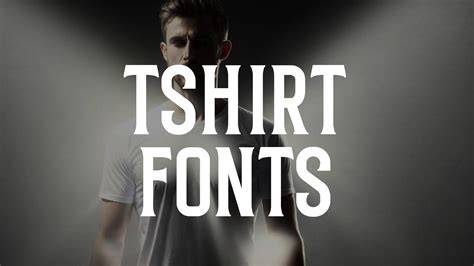
The Best T-Shirt Design Fonts Of 2023
What Are The Benefits of Using Fonts In T-Shirt Design?
Using fonts for t-shirt design is a great way to make your design stand out. Fonts can provide a unique look, and can be used to create a variety of different styles. Fonts can add personality to your design, and can be used to create text-based designs that are both attractive and readable. Fonts can also be used to create bold statements, or to create subtle messages. Fonts are also a great way to add a personal touch to your design.
Fonts can also be used to create a sense of unity and consistency throughout your design. Using the same font throughout your design will help to keep the overall look and feel of the design consistent. This consistency can be used to create a unified look, and to make sure that different elements of your design all work together. Fonts can also be used to create visual hierarchy, and to make sure that the important elements of your design stand out.
Fonts can also be used to create a sense of movement and flow within your design. By using different fonts in different parts of your design, you can create a sense of movement throughout the design. This movement can be used to direct the eye of the viewer throughout the design, creating a more engaging and dynamic design.
What Are The Different Types of Fonts Used In T-Shirt Design?
Fonts come in a variety of different styles and designs, and can be used for a range of different purposes. Commonly used fonts for t-shirt design include serif fonts, sans serif fonts, script fonts, display fonts, and decorative fonts. Serif fonts are classic fonts that feature small lines or details at the ends of each letter. Sans serif fonts are more modern and feature smooth lines without any added details. Script fonts are cursive fonts that feature stylish and intricate lettering. Display fonts are bold and eye-catching fonts that are perfect for creating a statement. Decorative fonts are unique and creative fonts that can be used to create a unique look.
The type of font that you choose for your design will depend on the overall look and feel that you want to create. For example, if you want to create a classic look, you may want to use a serif font. If you want to create a modern look, a sans serif font may be the best choice. If you want to create a bold statement, a display font may be the perfect font for you. And if you want to create a unique and creative design, a decorative font may be the perfect choice.
How to Choose the Right Font for Your T-Shirt Design?
Choosing the right font for your t-shirt design can be a difficult task. There are so many different fonts to choose from, and it can be hard to know which one is right for your design. To help you choose the right font for your design, here are a few tips.
First, consider the overall look and feel of your design. Are you trying to create a classic look? Or a modern look? Consider the style of the font and make sure it fits the overall aesthetic of your design. Second, consider the size of the font. Make sure that it is large enough to be readable, but not so large that it overwhelms the design. And finally, consider the readability of the font. Make sure that the font is easy to read, so that your design can be easily understood.
Where to Find The Best T-Shirt Design Fonts?
Finding the best t-shirt design fonts can be a challenge. There are so many different fonts to choose from, and it can be hard to know which ones are the best. To help you find the perfect font for your design, here are a few of the best places to look.
First, you can check out online font libraries. There are many online font libraries that offer a wide range of fonts, from classic fonts to modern fonts. You can browse through these libraries and find the perfect font for your design. Second, you can check out online font marketplaces. There are many online font marketplaces where you can buy fonts, and you can find a wide range of fonts to choose from. Finally, you can check out online font generators. These generators allow you to create your own custom fonts, and you can find a wide range of fonts to choose from.
Fonts are an important part of t-shirt design, and can be used to create a variety of different looks. There are a variety of different types of fonts to choose from, and it is important to choose the right font for your design. To find the best fonts for your design, you can check out online font libraries, online font marketplaces, and online font generators. With these tips, you will be able to find the perfect font for your t-shirt design.